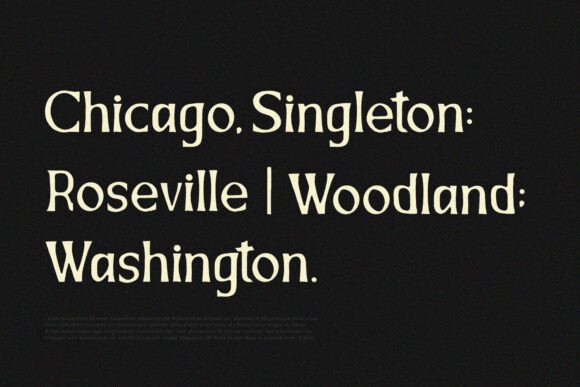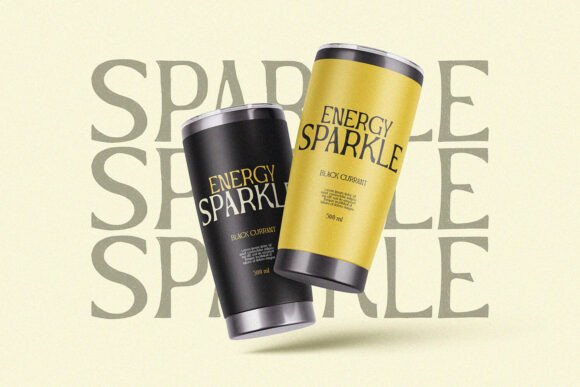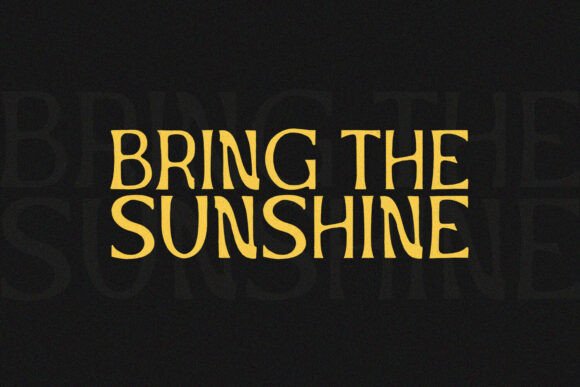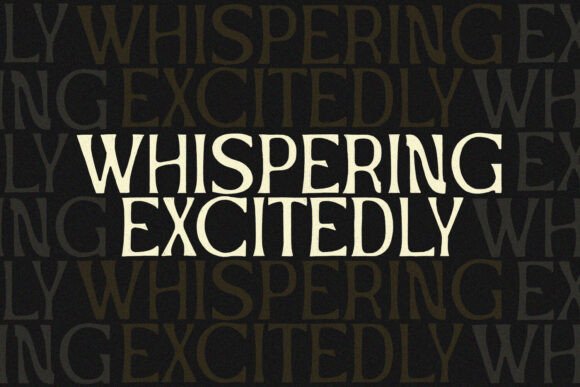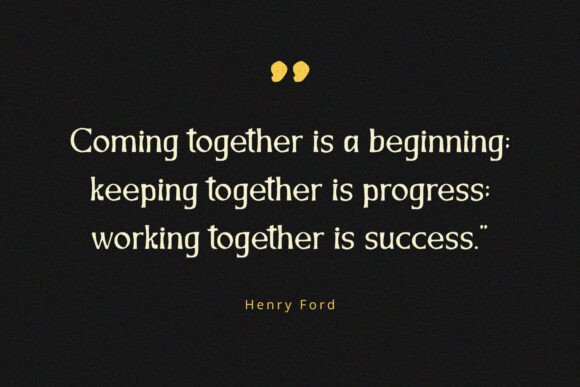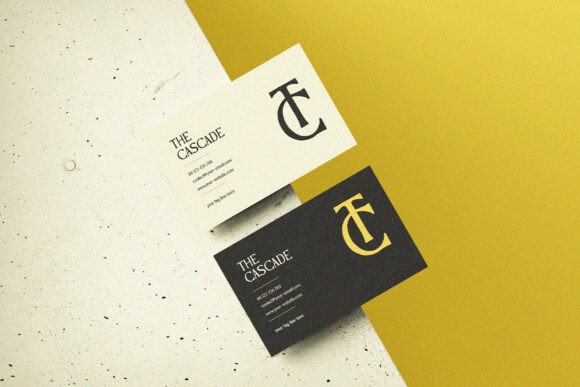
Introduction to Sagecity Font
Remember that moment when you stumbled upon an old photograph, and the faded colors and distressed texture instantly transported you back to a bygone era? For designers, that feeling is what makes the Sagecity Font so special. This enchanting serif font feels playfully nostalgic and delivers an incredible vintage aesthetic that’s sure to captivate your audience.
Whether you’re working on a creative project or simply looking to add a touch of nostalgia to your design, the Sagecity Font is an invaluable resource. Its unique blend of elegance and playfulness makes it an ideal choice for designers seeking to create high-quality, visually appealing content. And the best part? It’s available for free download, making it an accessible design resource for anyone looking to elevate their creative project.
- High-quality, professional font suitable for creative projects
- Designed as a versatile design resource for various creative applications
- Perfect for use in logos, branding materials, and other visual identity projects
Honest Review: Sagecity Font
I recently had the chance to experiment with the Sagecity Font, and I’m excited to share my thoughts on this design resource. One of the standout features is the high quality of the font, which makes it perfect for a wide range of creative projects. Whether you’re working on a brochure, website, or social media campaign, the Sagecity Font is sure to elevate your design.
- High quality design that’s perfect for a variety of creative projects
- Easy to use and customize
While the Sagecity Font is a solid choice for many designers, there are a few limitations to be aware of:
- ⚠️ Limited font options (only a few styles to choose from)
- ⚠️ Some users may find the font to be a bit too minimalist for their taste
Overall, I’m impressed with the Sagecity Font. It’s a great choice for designers looking for a high-quality, free design resource. With a little creativity, you can make the most of this font and create some amazing designs.
Tips for Getting the Most Out of Sagecity Font
The Sagecity Font is a versatile design resource that can be used in a variety of creative projects. Use it for logos, brochures, posters, and more. The high-quality, transparent background makes it perfect for presentations, infographics, and other visual materials.